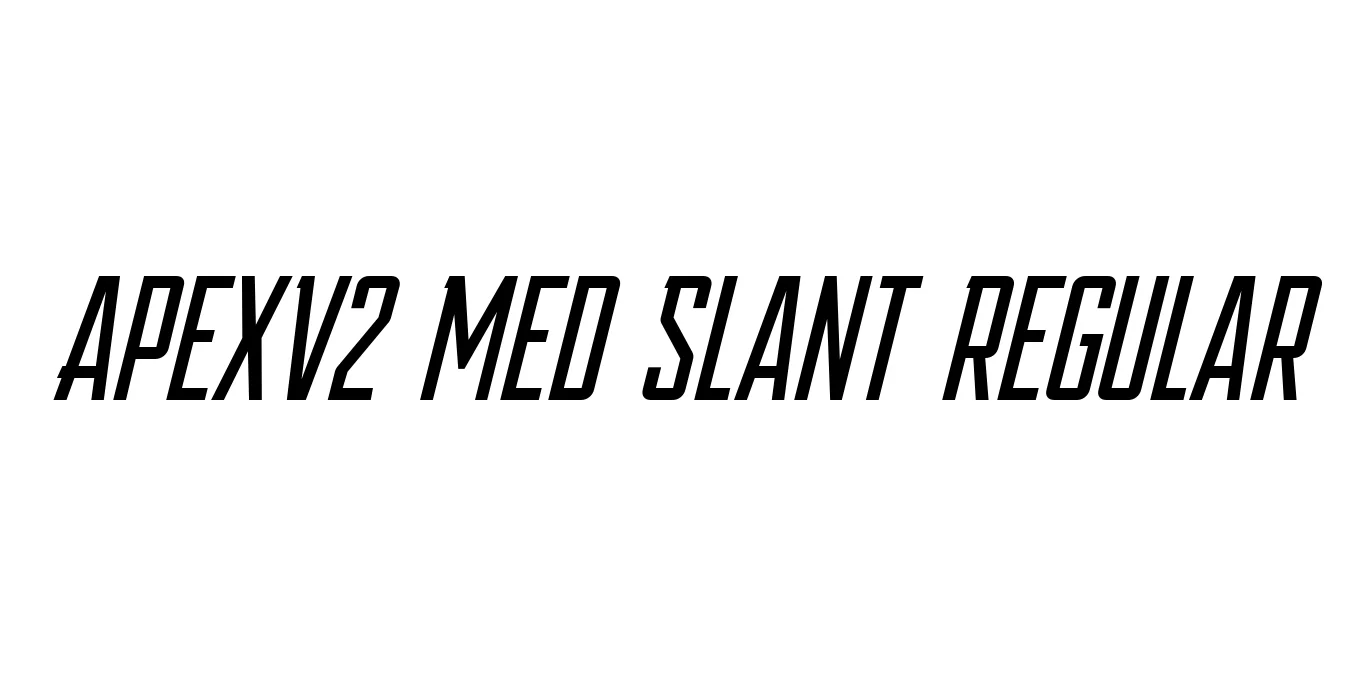
ApexV2 Med Slant Regular
Designed by Jeremy Nelson
| Category | Display Sans Serif |
| Designer | Jeremy Nelson |
ApexV2 Med Slant Regular is a sophisticated evolution of the geometric sans-serif genre, meticulously crafted to bridge the gap between technical precision and modern aesthetic appeal. Originating from a lineage of display typefaces designed for high-impact visual communication, this version introduces a dynamic slant that adds a sense of motion and urgency to the letterforms without compromising legibility.
The typeface features robust construction with clean, sharp edges that make it ideal for contemporary digital environments and print media alike. Its medium weight provides a perfect balance, making it versatile enough for branding projects, editorial headlines, and technical documentation where a touch of futuristic elegance is required.
ApexV2 Med Slant Regular Best Uses
Ideal for tech startups and automotive brands seeking a forward-thinking look.
Perfect for high-impact titles in magazines and digital articles.
The slanted design conveys speed and energy, making it great for athletic apparel and posters.
Clean geometry ensures readability in application interfaces and dashboards.